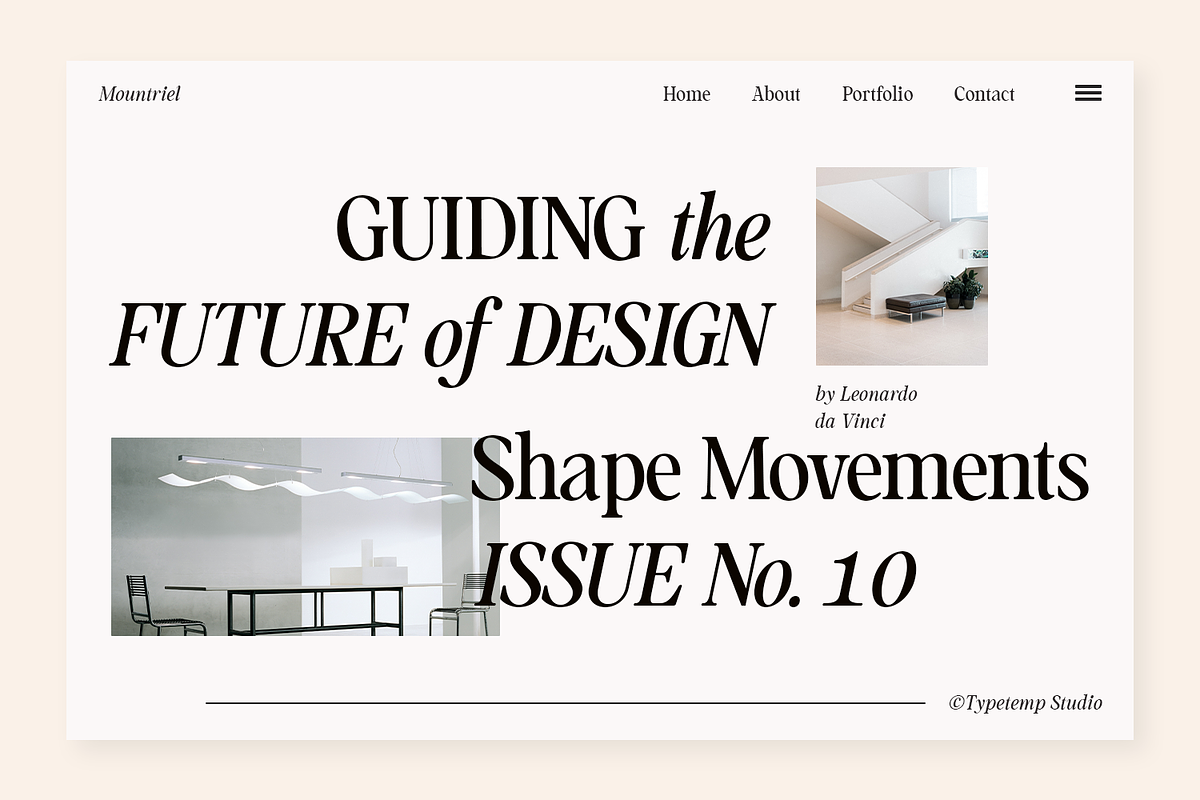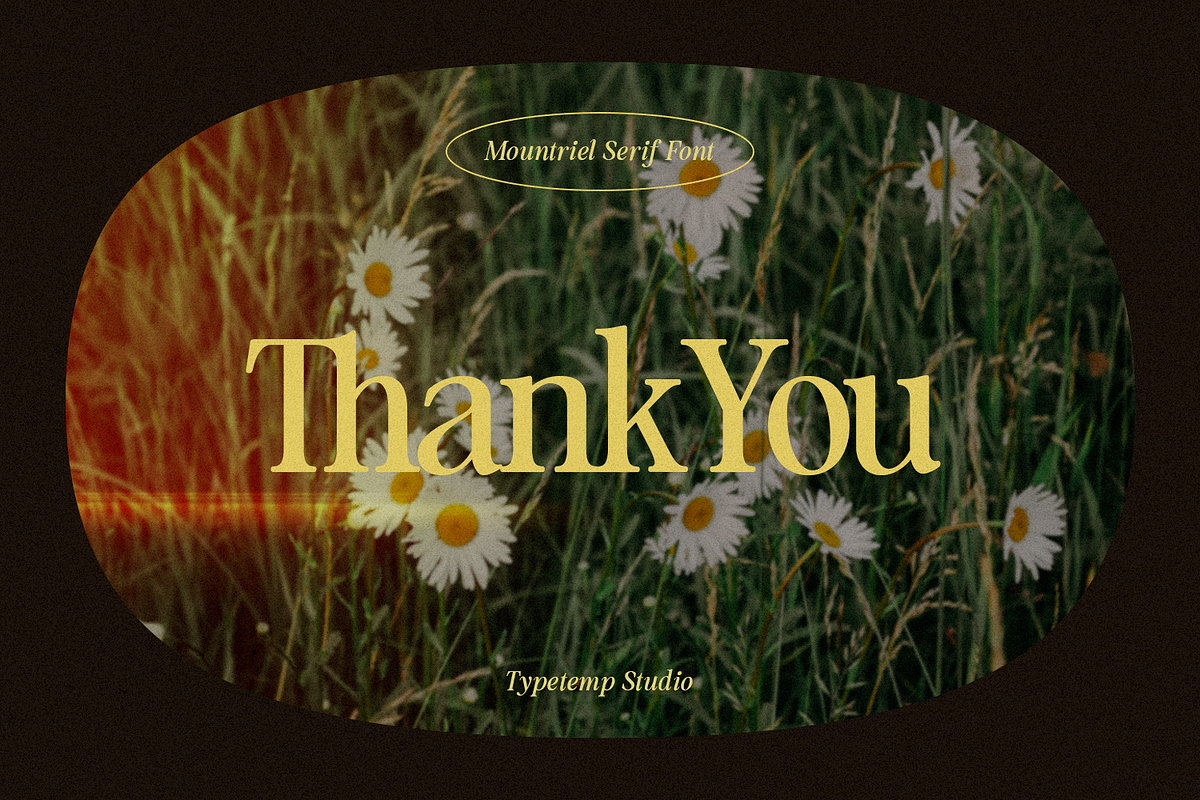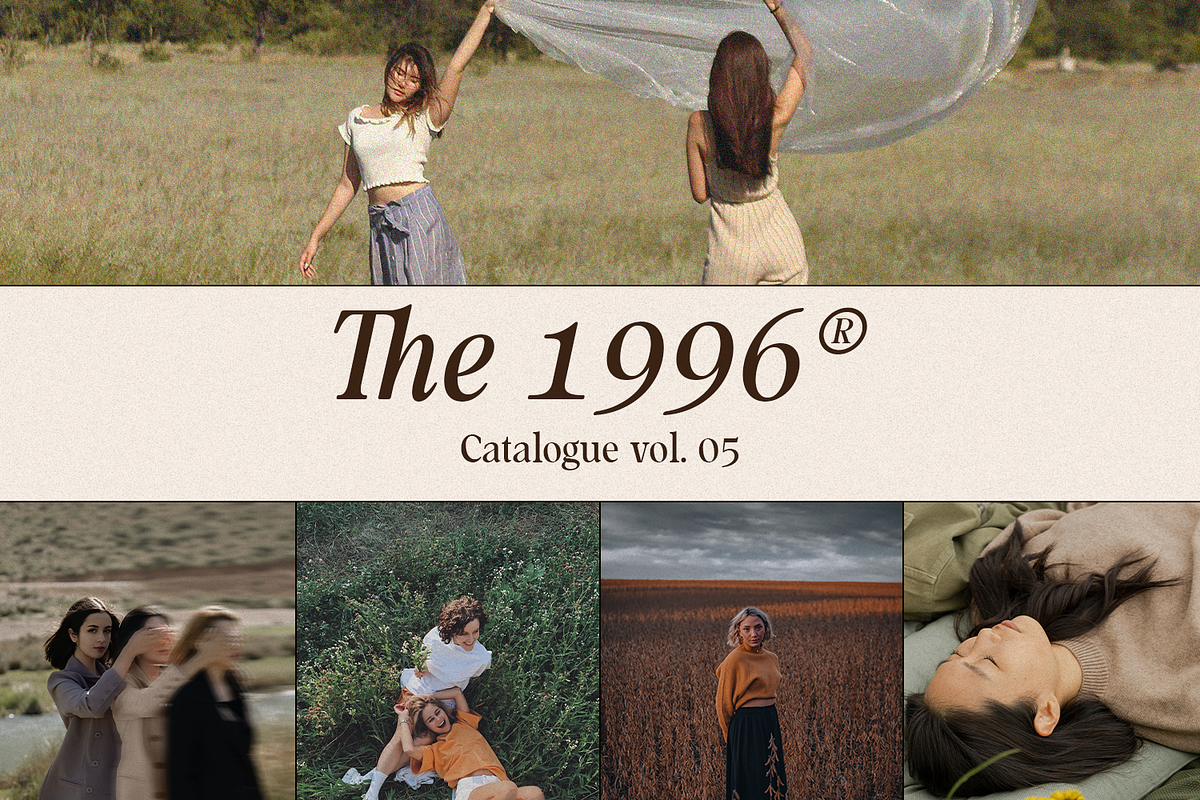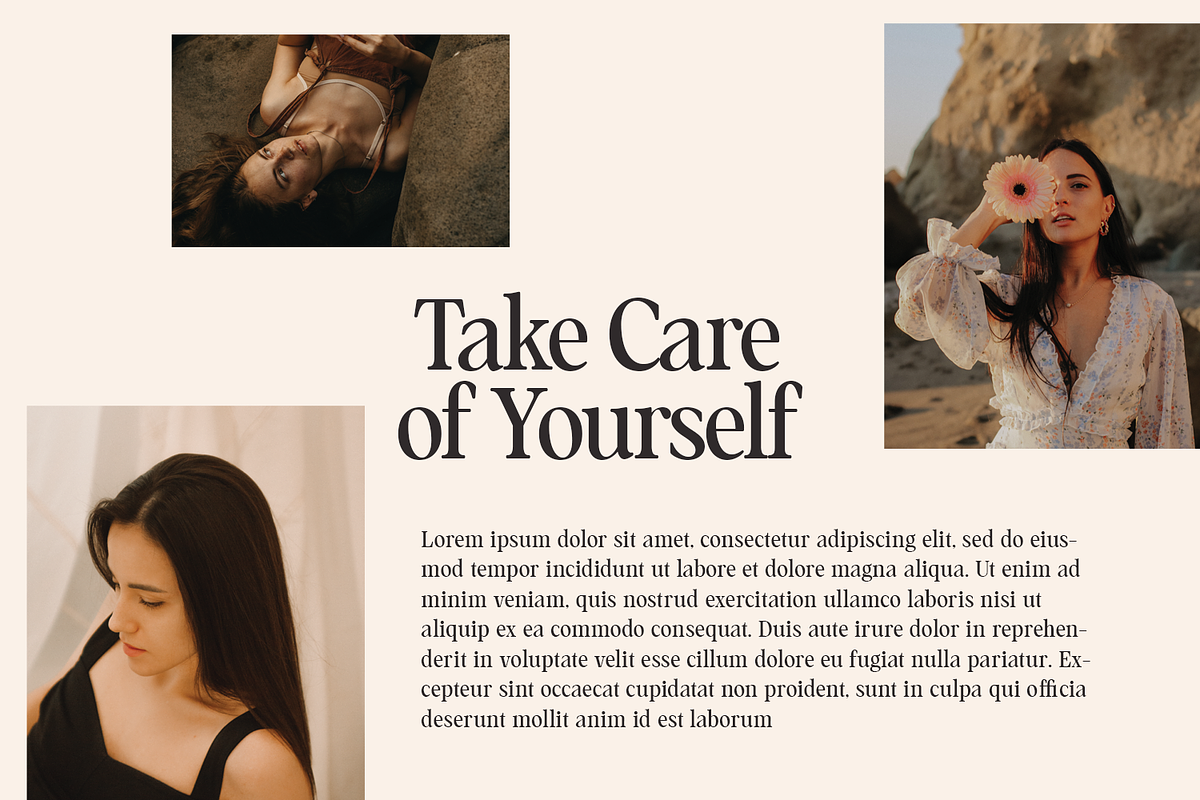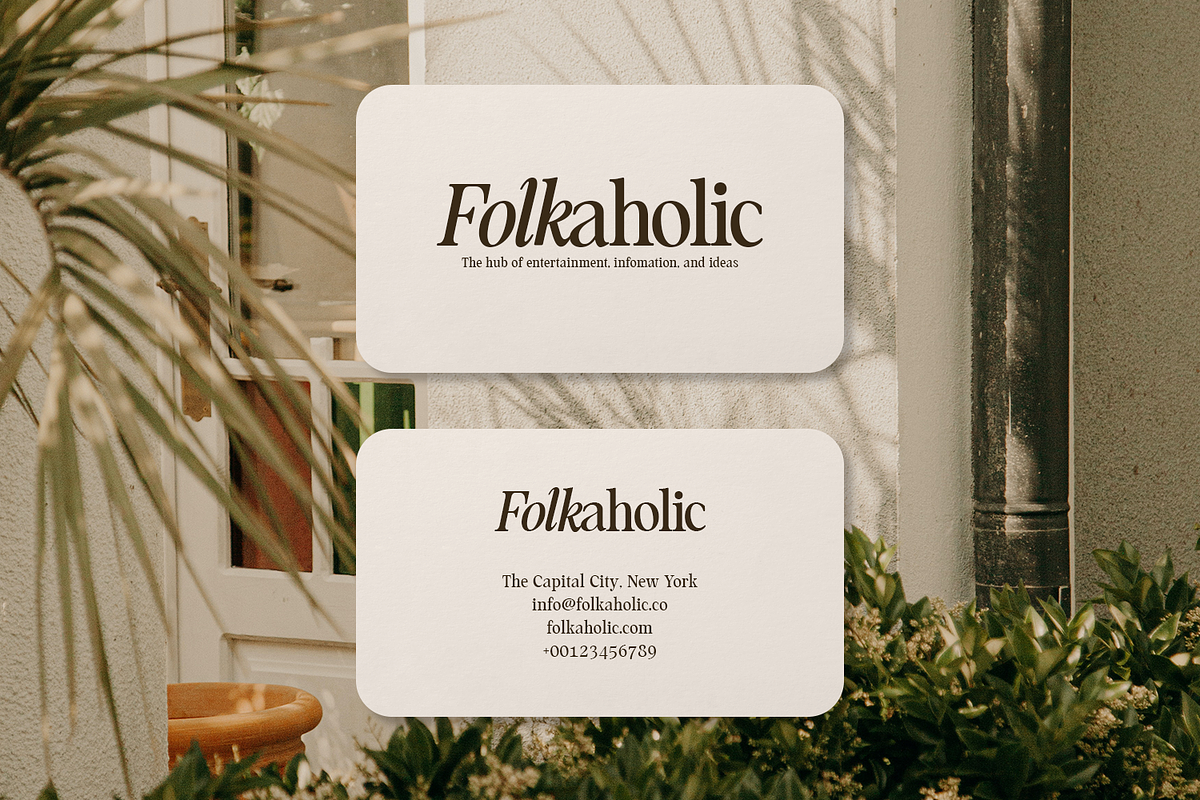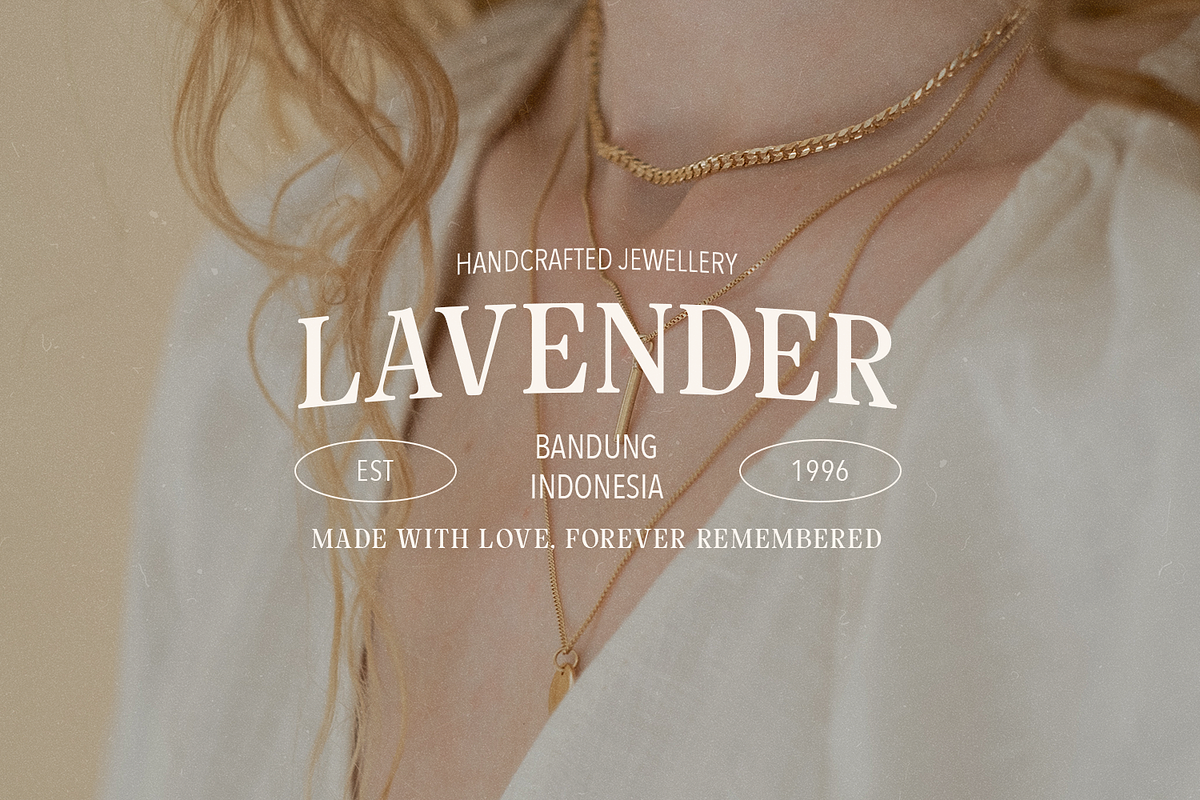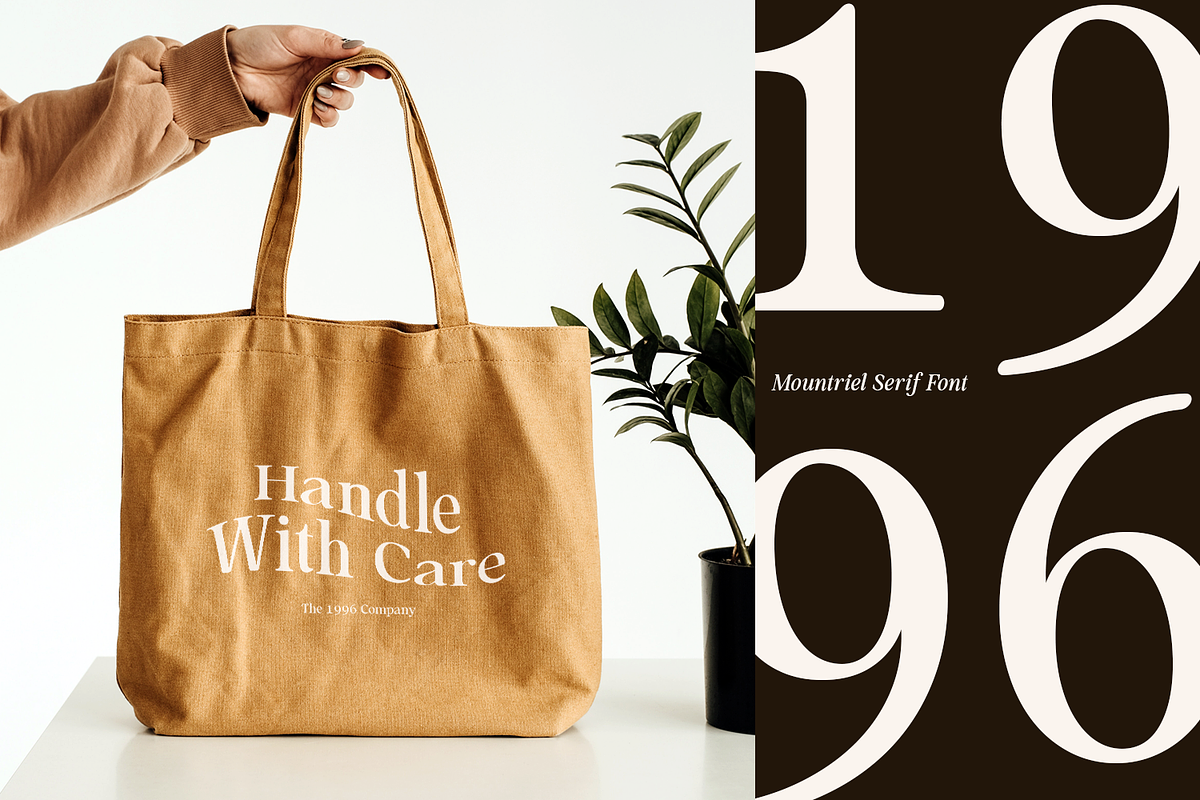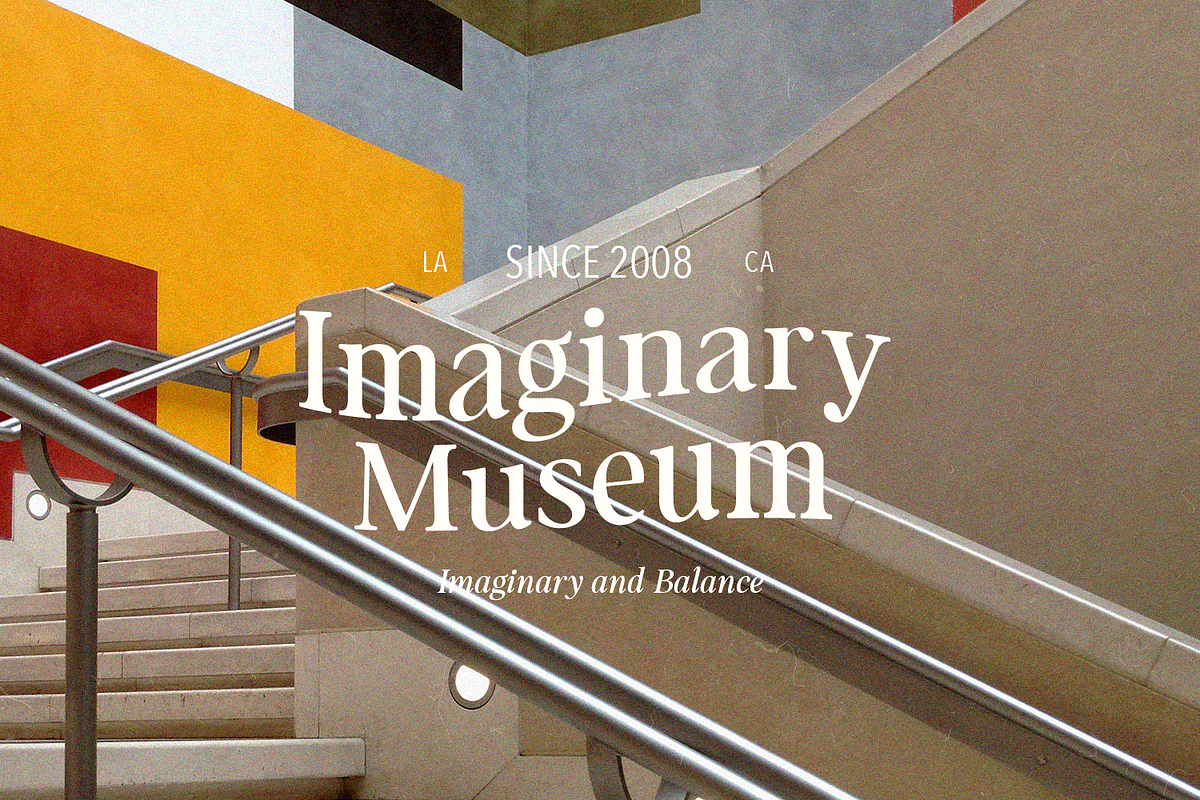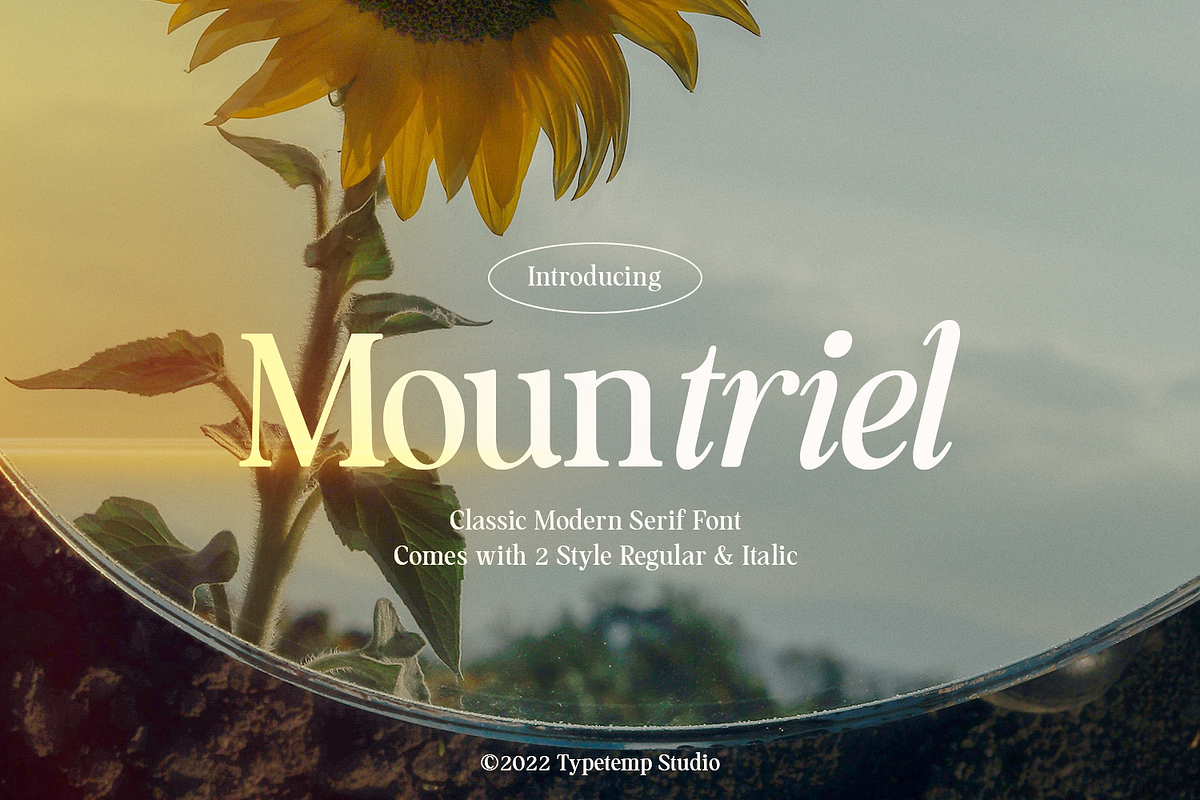
Mountriel - Classic Modern Serif
Mountriel is a timeless classic modern serif font designed by Typetemp Studio. It effortlessly pairs clean, high-contrast structural elegance with smooth, organic details. This versatile font family includes two distinct styles—a poised Regularweight and a graceful, flowing Italic script—giving you the perfect balance of visual strength and editorial flair for high-end layouts.
Comes with 2 core styles: Regular & Italic.
Sleek, high-contrast letterforms with modern serif terminals.
Clean, minimalist architecture perfect for luxury and editorial themes.
Detailed Usage
Luxury Branding: An exquisite choice for upscale boutique brands, modern wellness studios, luxury real estate projects, and premium lifestyle identities seeking a sophisticated aesthetic.
Product Packaging: Beautifully enhances high-end cosmetics, luxury skincare jars, artisan perfumes, boutique wine labels, and gourmet food products.
Editorial & Layouts: Highly recommended for prominent fashion magazine headers, museum or gallery brochures, luxury real estate portfolios, and premium book covers.
Digital Content: Elevates website landing pages, high-end lookbooks, minimalist social media layouts, photography watermarks, and elegant video title cards.